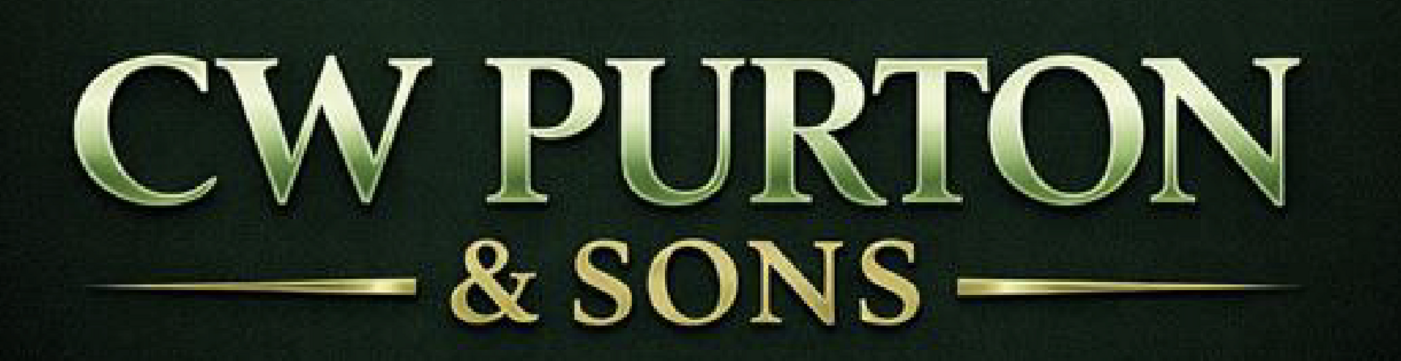
Serif logo font for earthworks company
Trying to redraw logo after unsuitable version supplied. It looks familiar and have found a few which nearly match - the best being Minion and Adobe Arabic! The R's tail is the most distinguishing feature, combined with the C without a lower serif, the W without a centre serif and also the classic & shape. See a larger version here: https://www.cwpurtonandsons.com Any help gratefully received. Thank you.